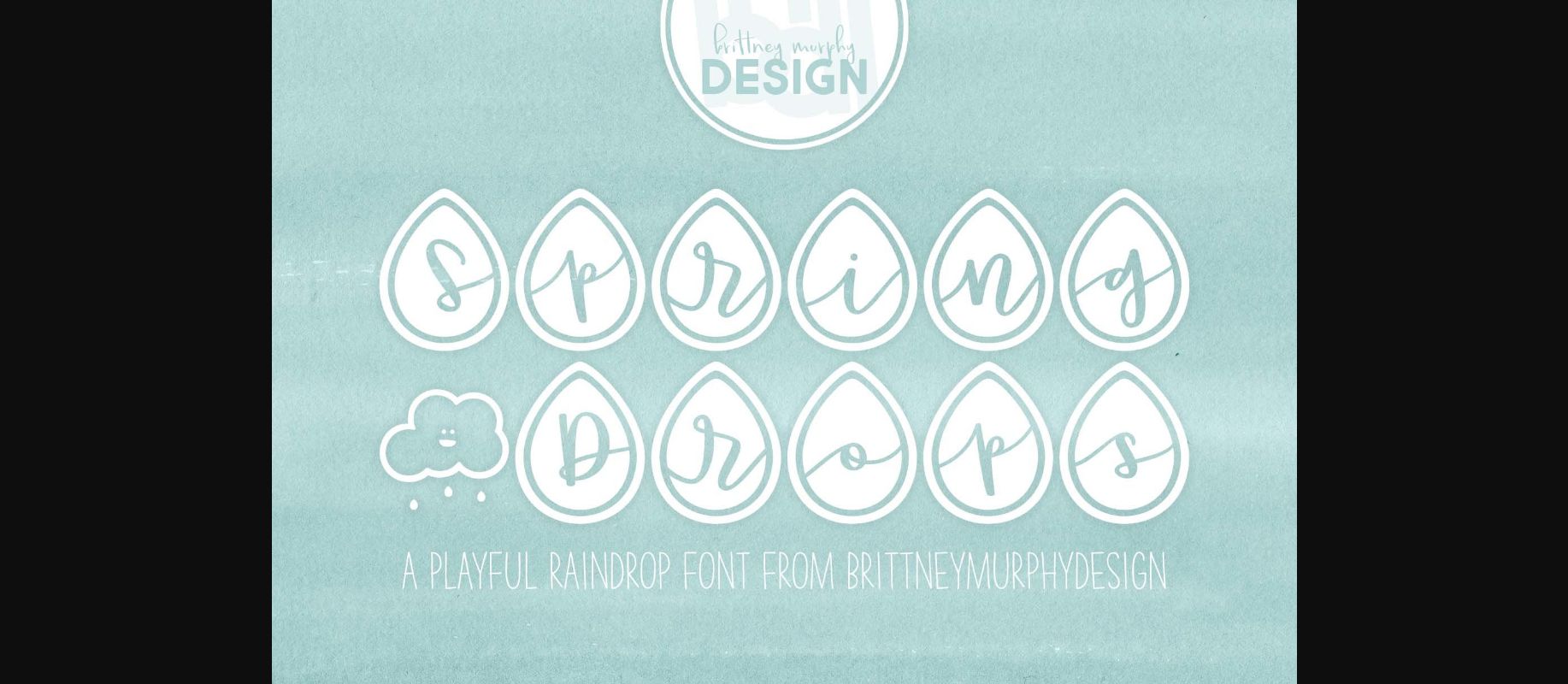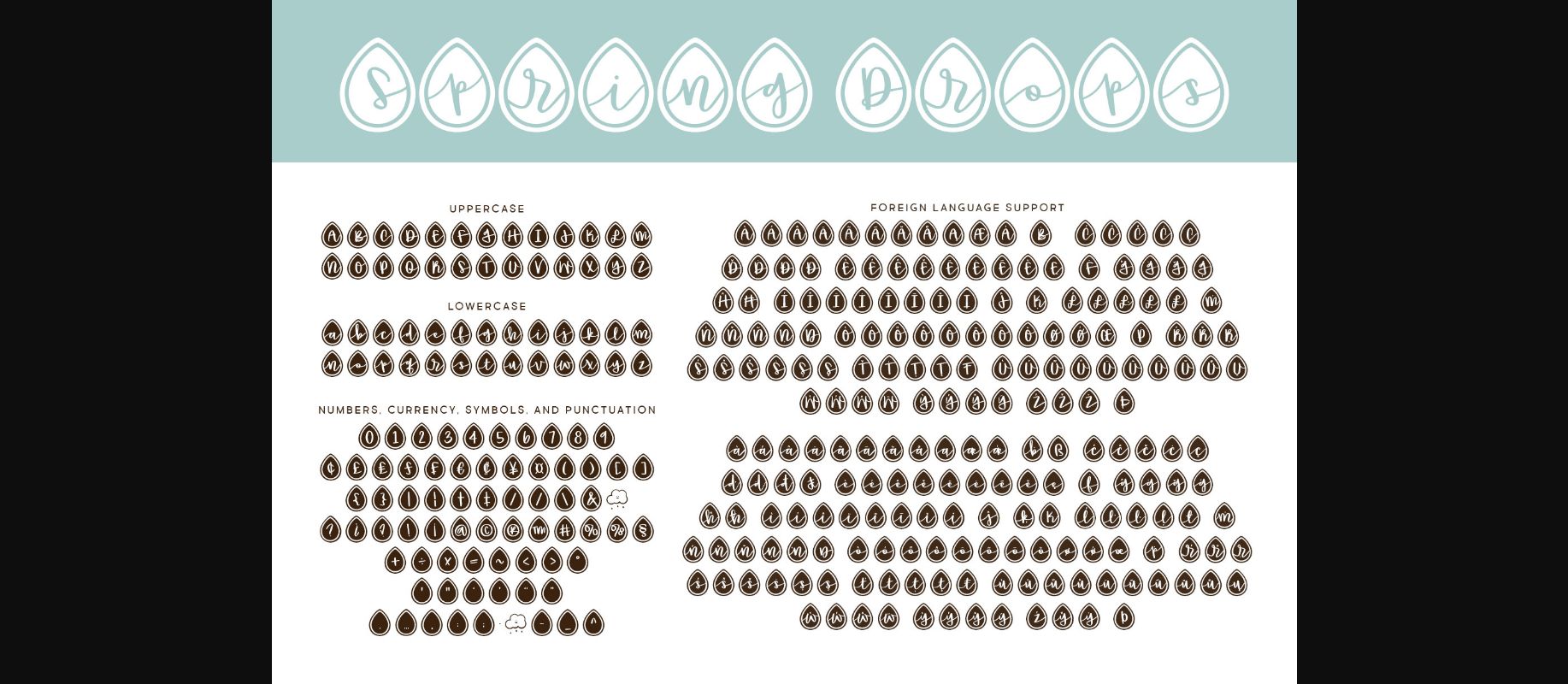
HomeDecorative FontsSpring Drops Font Decorative Fonts Spring Drops Font FacebookXPinterestWhatsApp 1 of 4 ... Spring Drops Font Poster 2... Spring Drops Font Poster 3... Spring Drops Font Poster 4... About Spring Drops Font Spring Drops features cursive letters encased in outlined rain-drop shapes. Perfect for cute springtime decorations! Use the asterisk * for the cloud character! DOWNLOAD NOW People also explored Kentya Font Young Street Font Breazer Font Hellena Script Font Shaped Font Gandaria Font Halloween Dripper Font Smart Mom Font Milky Walky Font 500 0 TagsSpring Drops Font Previous articleBunny Eggs FontNext articleEaster Eggs Font LEAVE A REPLY Cancel reply Comment: Please enter your comment! Name:* Please enter your name here Email:* You have entered an incorrect email address! Please enter your email address here Website: Save my name, email, and website in this browser for the next time I comment. Personal Use Free Einstaint Personal Use Free Read more about this font Gunplay Personal Use Free Read more about this font Genres Personal Use Free Read more about this font Autumn Flowers Font Personal Use Free Read more about this font BLOG Using Fonts in Digital Marketing: Tips to Strengthen Your Brand Identity In the realm of digital marketing, every visual element plays a crucial role in shaping a brand's identity, and fonts are no exception. The... Fonts That Capture the Spirit of New York City Best Fonts for YouTube Videos: Make Your Thumbnails Stand Out Transform Your Website: Elevate Your Typography with 7 Best Web Font Generators